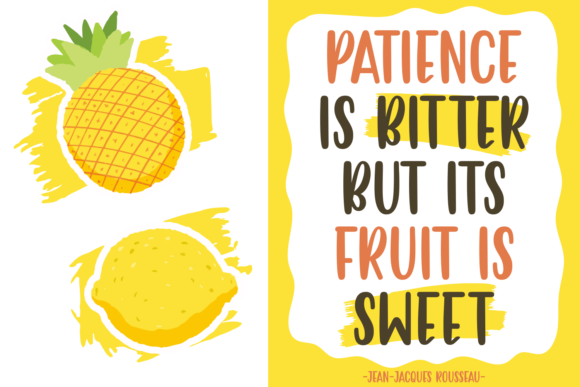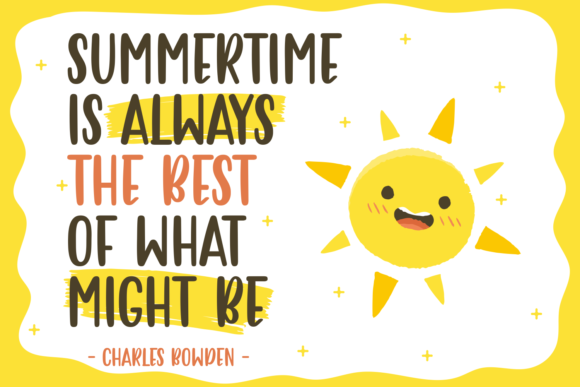
The Best Story Font
db-ku.com - Script & Handwritten -- The Best Story is a fun, bold, and informal handwritten font that will help you tell your story in your next design! Add this cheerful font to your next poster design, flyer, website, or teaching material.